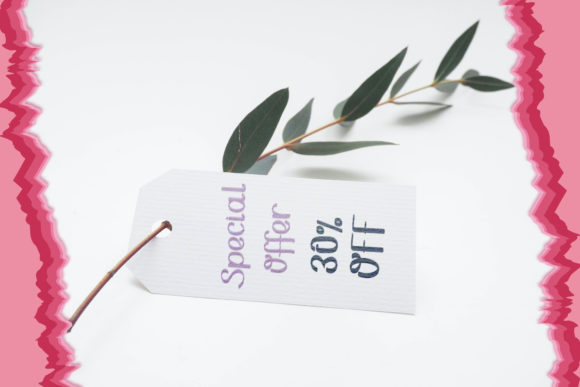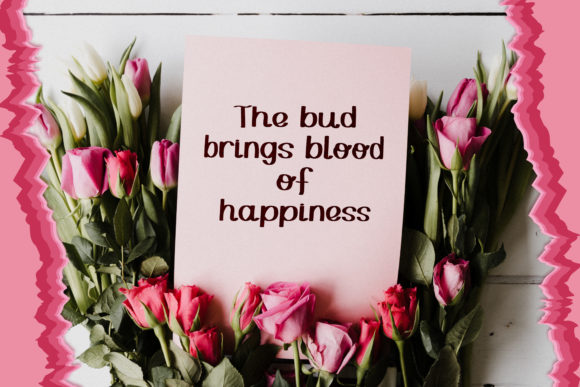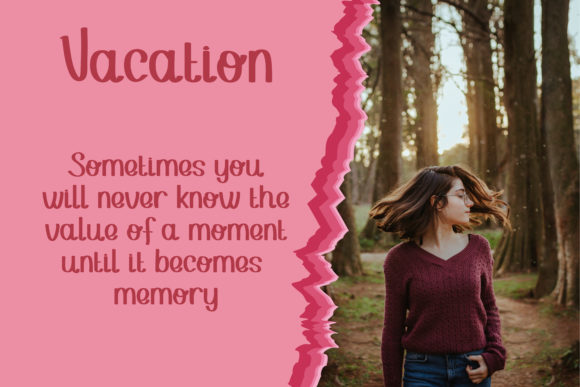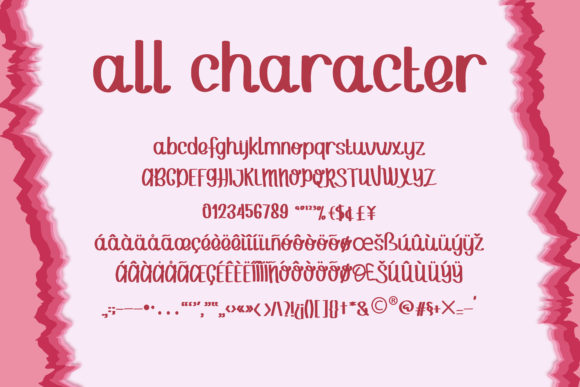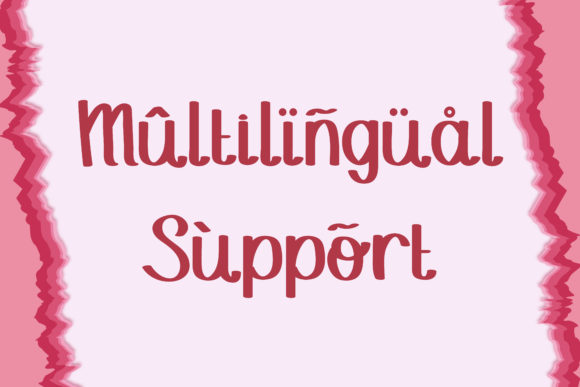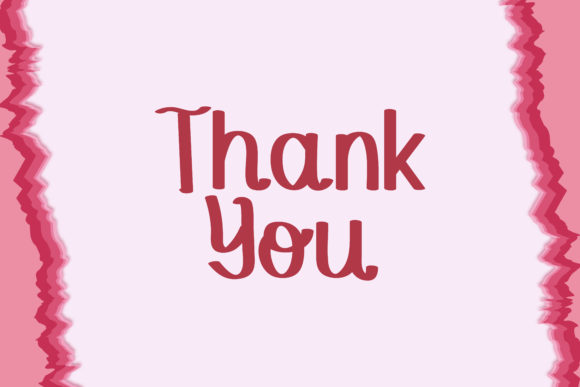
Introducing Chendany Font: The Perfect Handwritten Font for Your Creative Projects
Are you a designer, crafter, or DIY enthusiast looking for a unique and charming font to elevate your projects? Look no further than Chendany Font! This friendly, neat, and cute-looking handwritten font is designed to add a touch of personality and whimsy to your creations. In this article, we’ll dive into the features and benefits of Chendany Font, and explore how it can enhance the beauty of your projects.
What is Chendany Font?
Chendany Font is a carefully crafted handwritten font that strikes the perfect balance between being not too thin and not too thick. Its balanced and varied design makes it an ideal choice for a wide range of projects, from digital designs to print materials. Whether you’re creating invitations, greeting cards, posters, or social media graphics, Chendany Font is sure to add a touch of warmth and friendliness to your work.
Key Features of Chendany Font
• Unique and Whimsical Design: Chendany Font boasts a one-of-a-kind, handcrafted design that sets it apart from other fonts. Its cute and playful look is sure to capture the attention of your audience and leave a lasting impression.
• Balanced and Varied: The font’s balanced and varied design ensures that it’s not too thin or too thick, making it perfect for use in a variety of contexts.
• Easy to Read: Despite its whimsical design, Chendany Font is incredibly easy to read, making it perfect for body text and longer blocks of content.
• Multilingual Support: Chendany Font supports multiple languages, making it a great choice for designers and crafters working on international projects.
Benefits of Using Chendany Font
So why choose Chendany Font for your projects? Here are just a few benefits of using this charming font:
• Adds Personality to Your Projects: Chendany Font’s unique design injects personality and whimsy into your projects, setting them apart from more generic designs.
• Enhances Readability: The font’s balanced design and clear letterforms make it easy to read, even at smaller sizes.
• Versatile: Chendany Font is suitable for use in a wide range of projects, from digital designs to print materials.
• Time-Saving: With Chendany Font, you can create professional-looking projects in no time, thanks to its pre-designed letterforms and easy-to-use format.
Who Can Benefit from Chendany Font?
Chendany Font is perfect for a variety of designers, crafters, and DIY enthusiasts, including:
• Graphic Designers: Add a touch of personality to your digital designs, social media graphics, and branding materials.
• Crafters: Use Chendany Font to create beautiful handmade cards, invitations, and other paper crafts.
• DIY Enthusiasts: Add a professional touch to your DIY projects, such as signs, posters, and banners.
• Small Business Owners: Use Chendany Font to create eye-catching marketing materials, such as flyers, brochures, and business cards.
In conclusion, Chendany Font is a charming and versatile handwritten font that’s perfect for designers, crafters, and DIY enthusiasts looking to add a touch of personality to their projects. Its unique design, balanced and varied look, and ease of use make it an excellent choice for a wide range of applications. Whether you’re creating digital designs, print materials, or handmade crafts, Chendany Font is sure to enhance the beauty of your projects and leave a lasting impression on your audience.